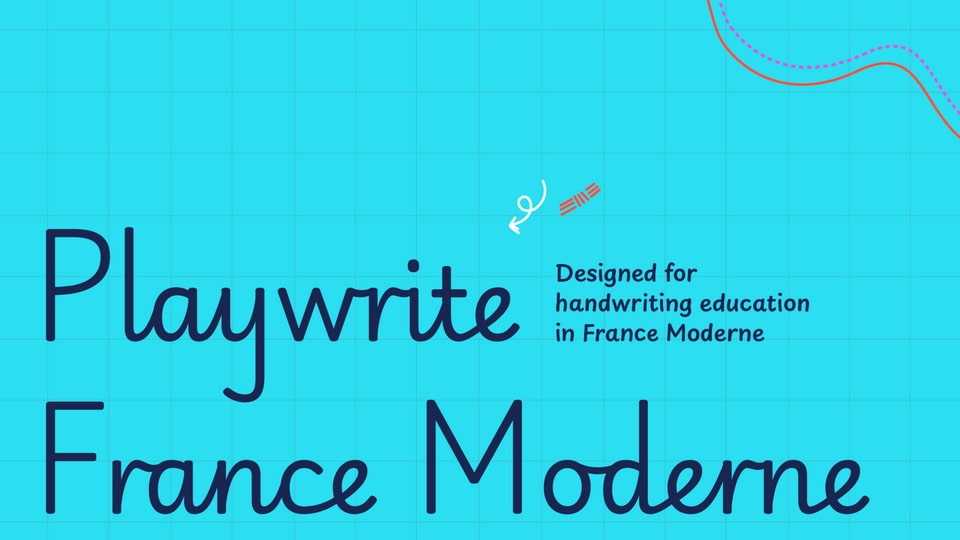
Download Playwrite France font, a typeface engine that allows the creation of primary school cursive fonts. The écriture cursive, or traditional vertical cursive, is the most used approach to handwriting teaching in schools in France.